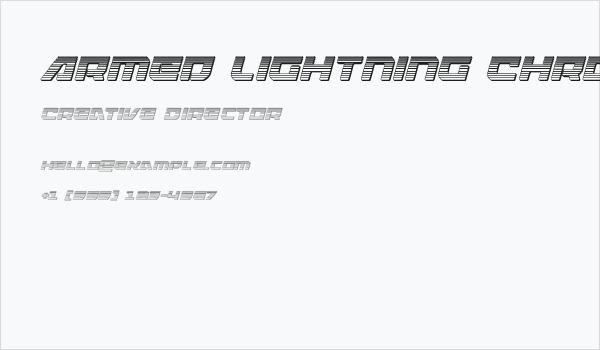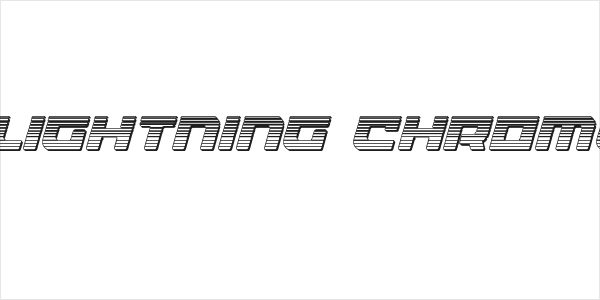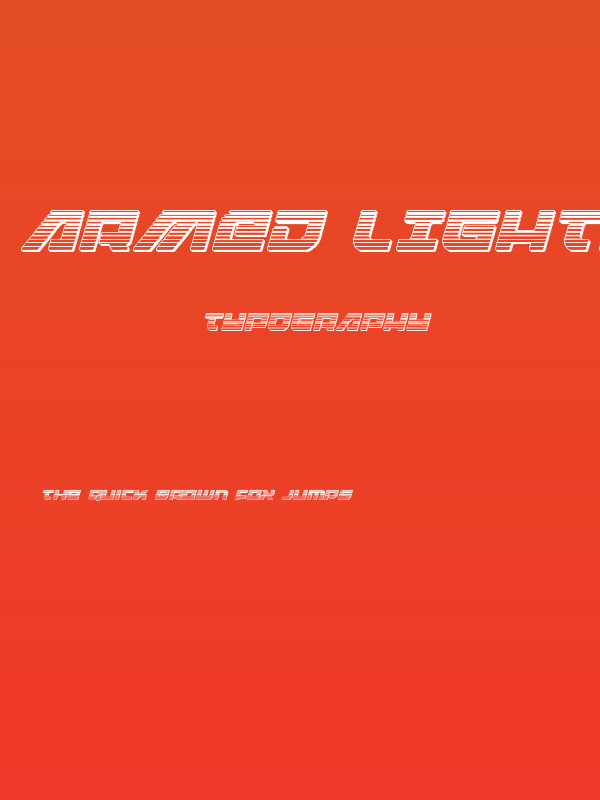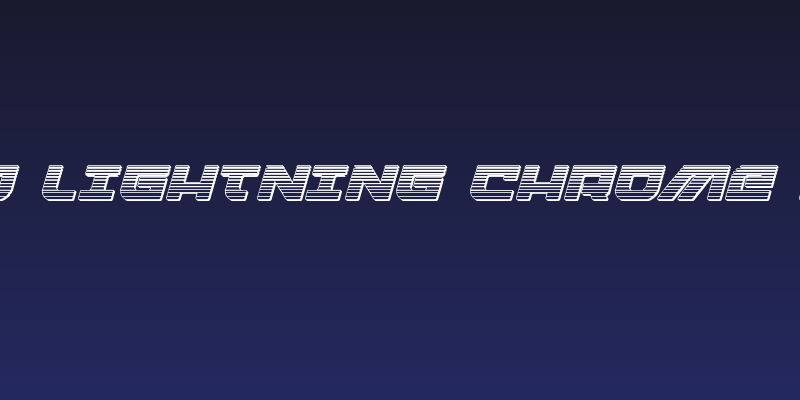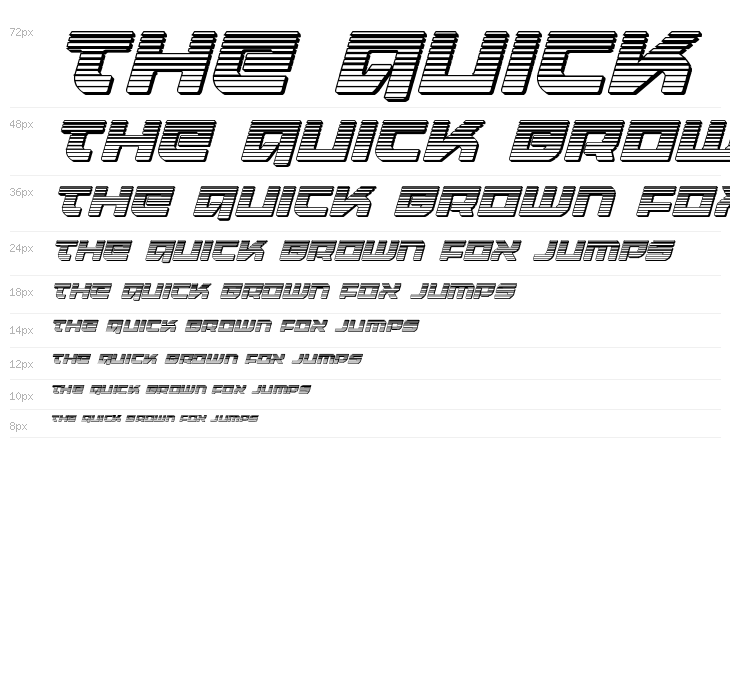
Armed Lightning Chrome Italic Font
Armed Lightning Chrome Italic Description
This font features a dynamic and futuristic design with a chrome-like appearance. The characters are composed of multiple parallel lines, creating a sense of movement and energy. The italic slant adds to the impression of speed and modernity. The uppercase and lowercase letters maintain a consistent style, with sharp angles and geometric forms. Numbers and special characters are designed to match the overall aesthetic, making the font suitable for projects that require a bold and striking visual impact.
| Proposed Projects | Ideal for sci-fi themed projects, technology branding, video game titles, and futuristic posters. |